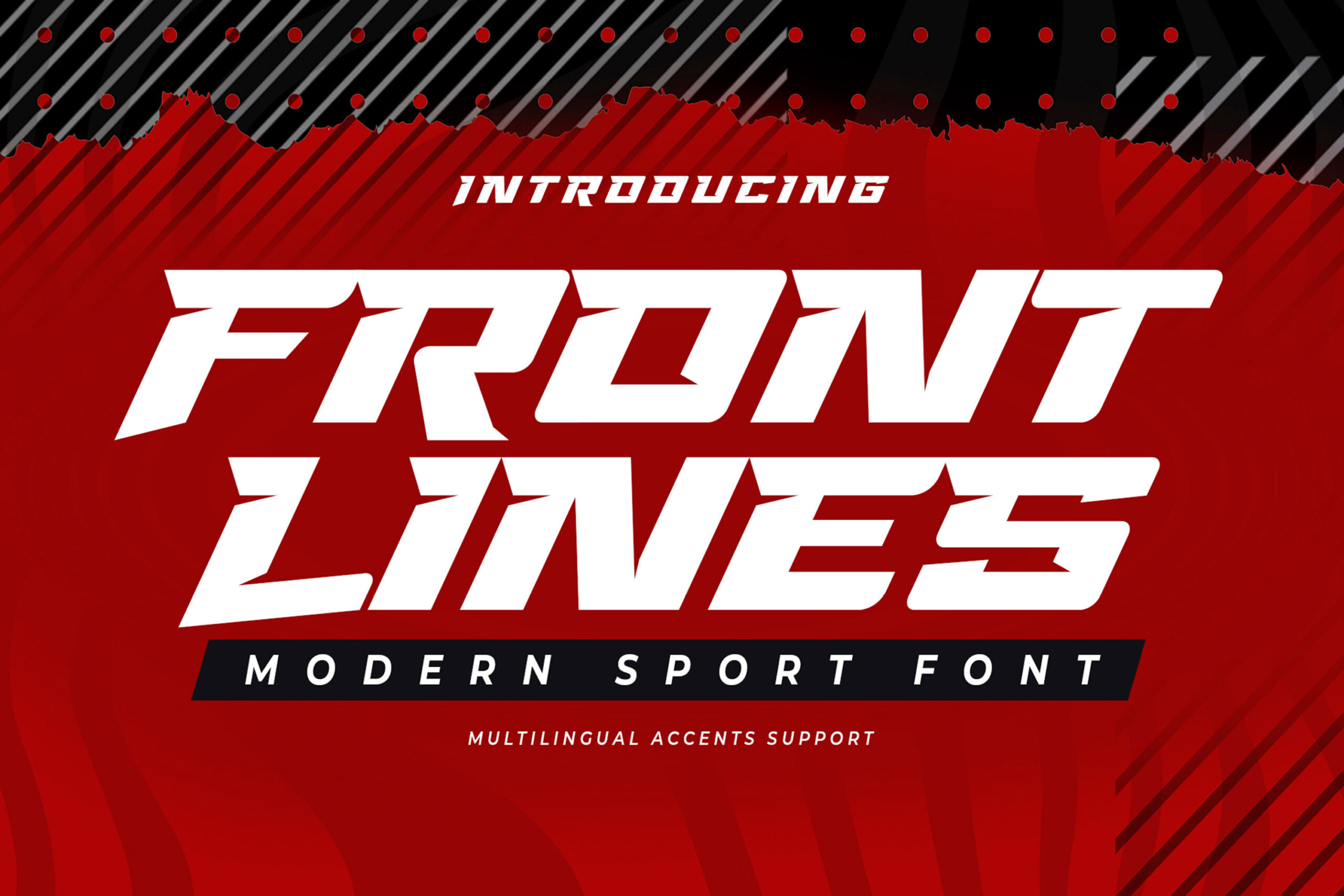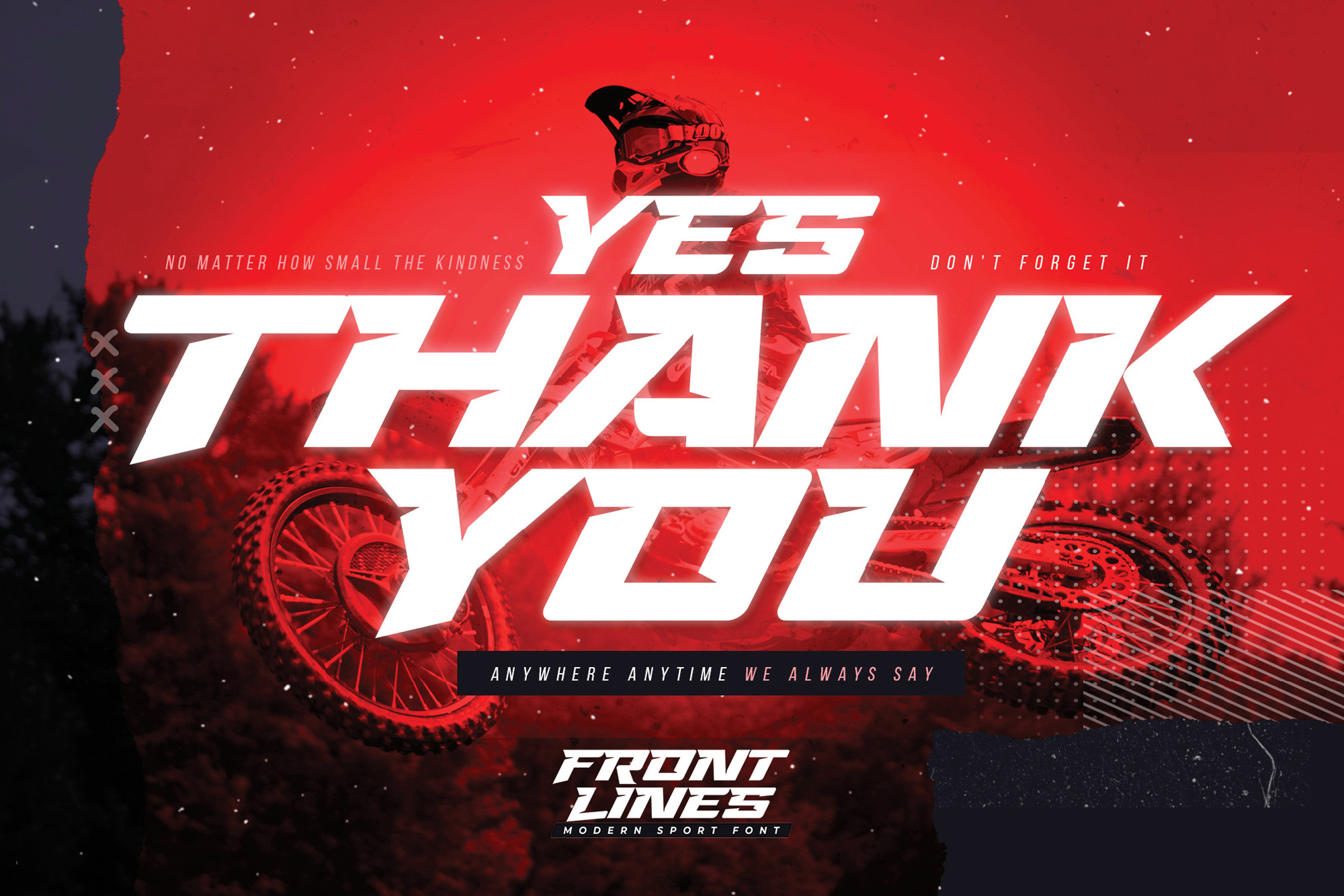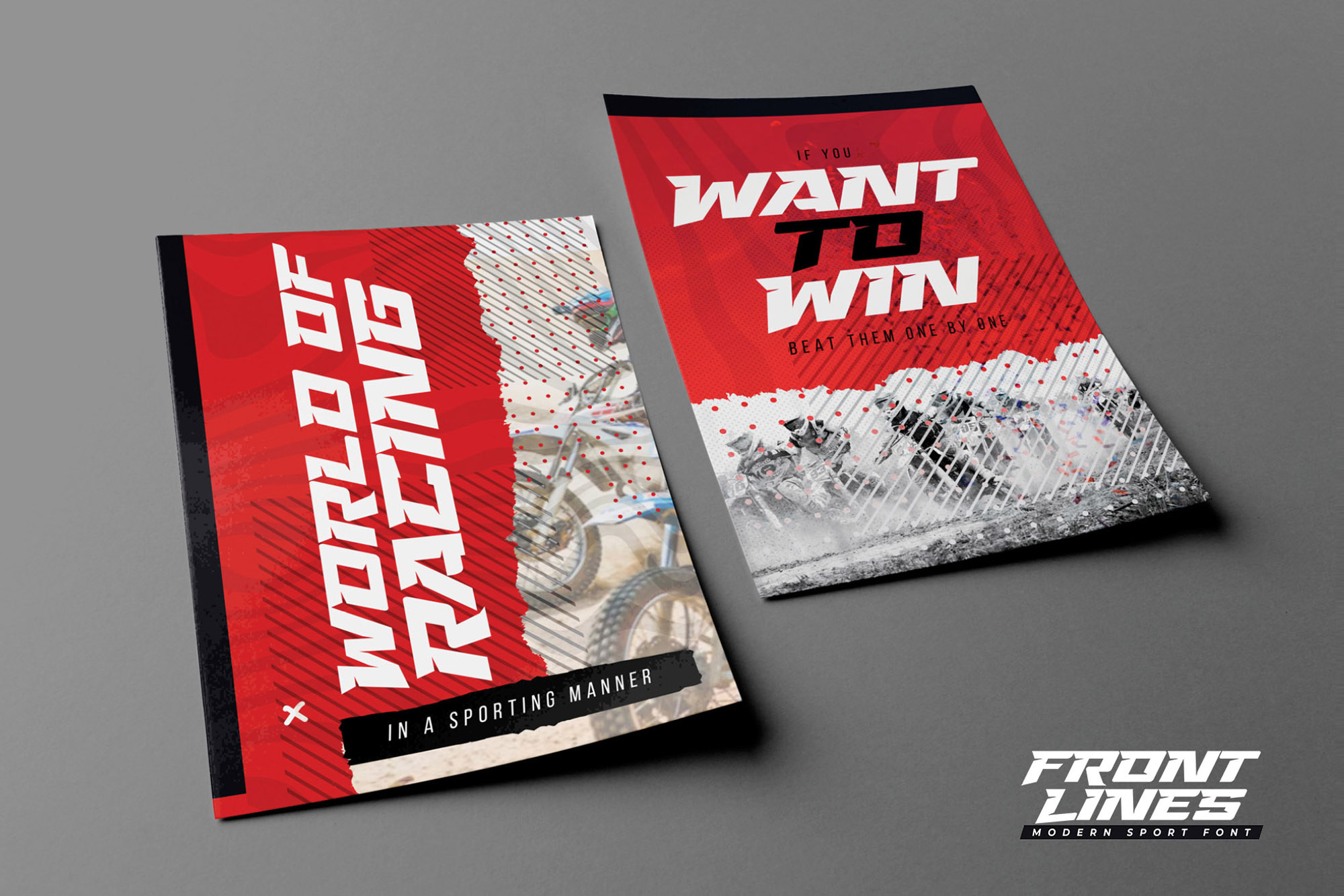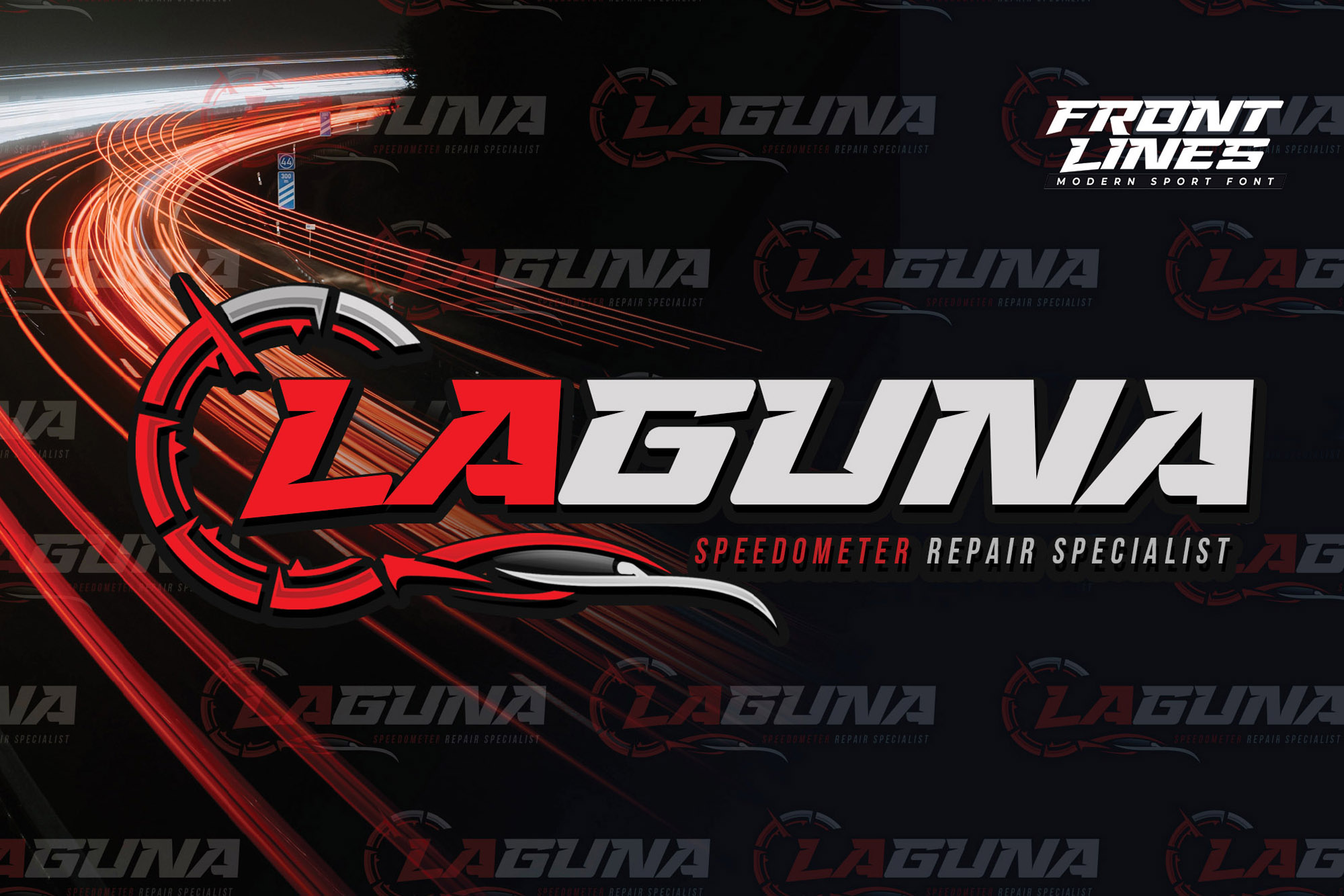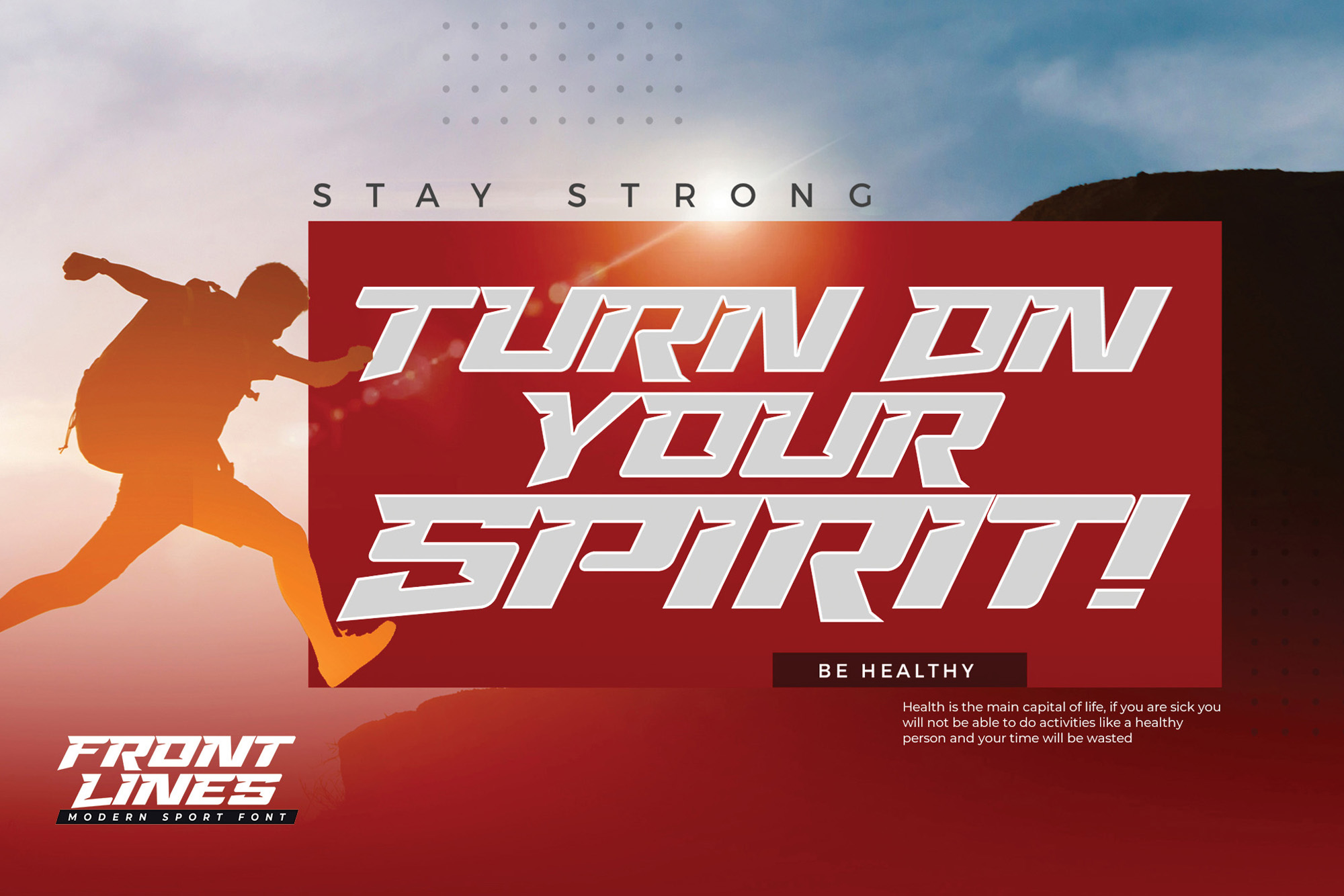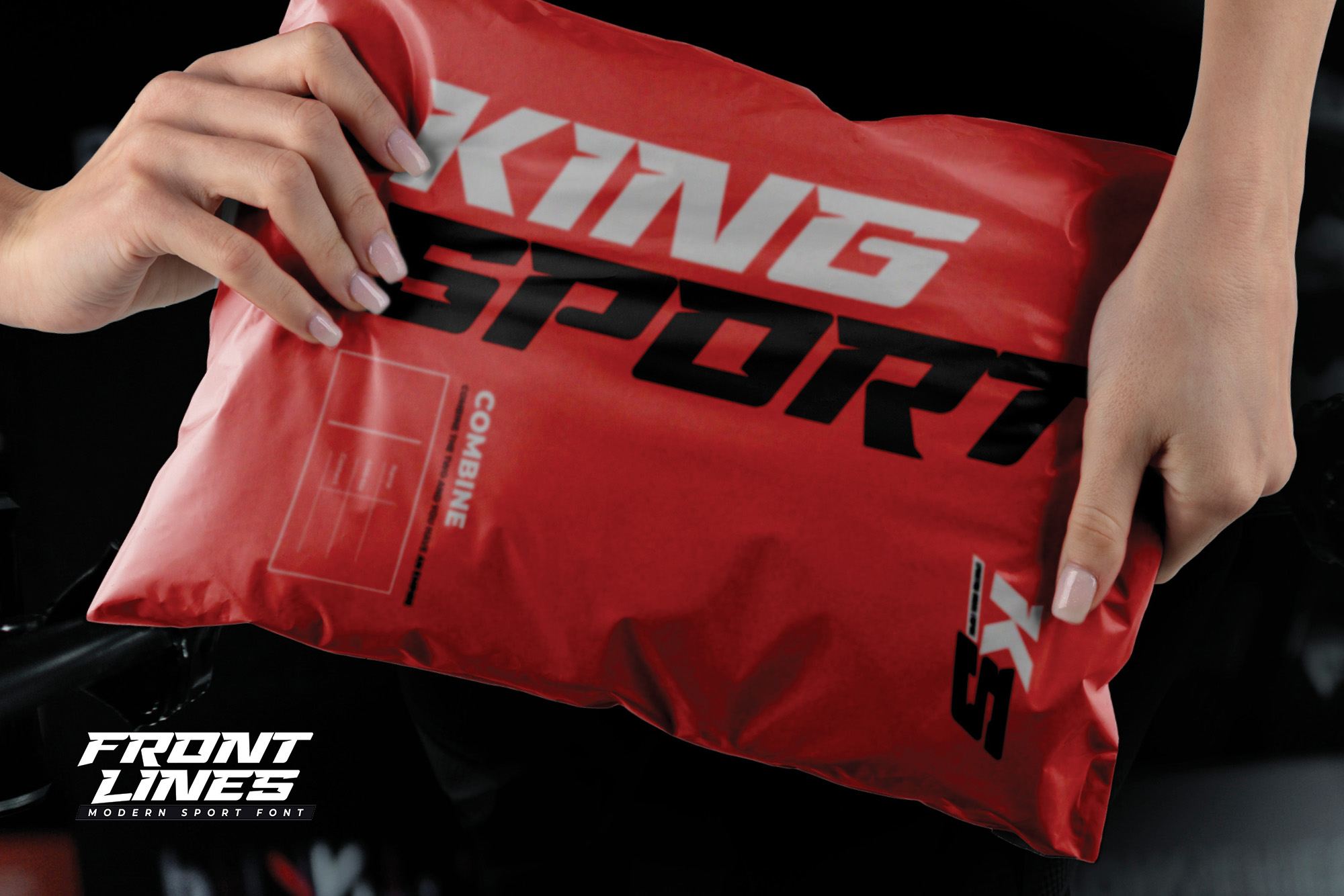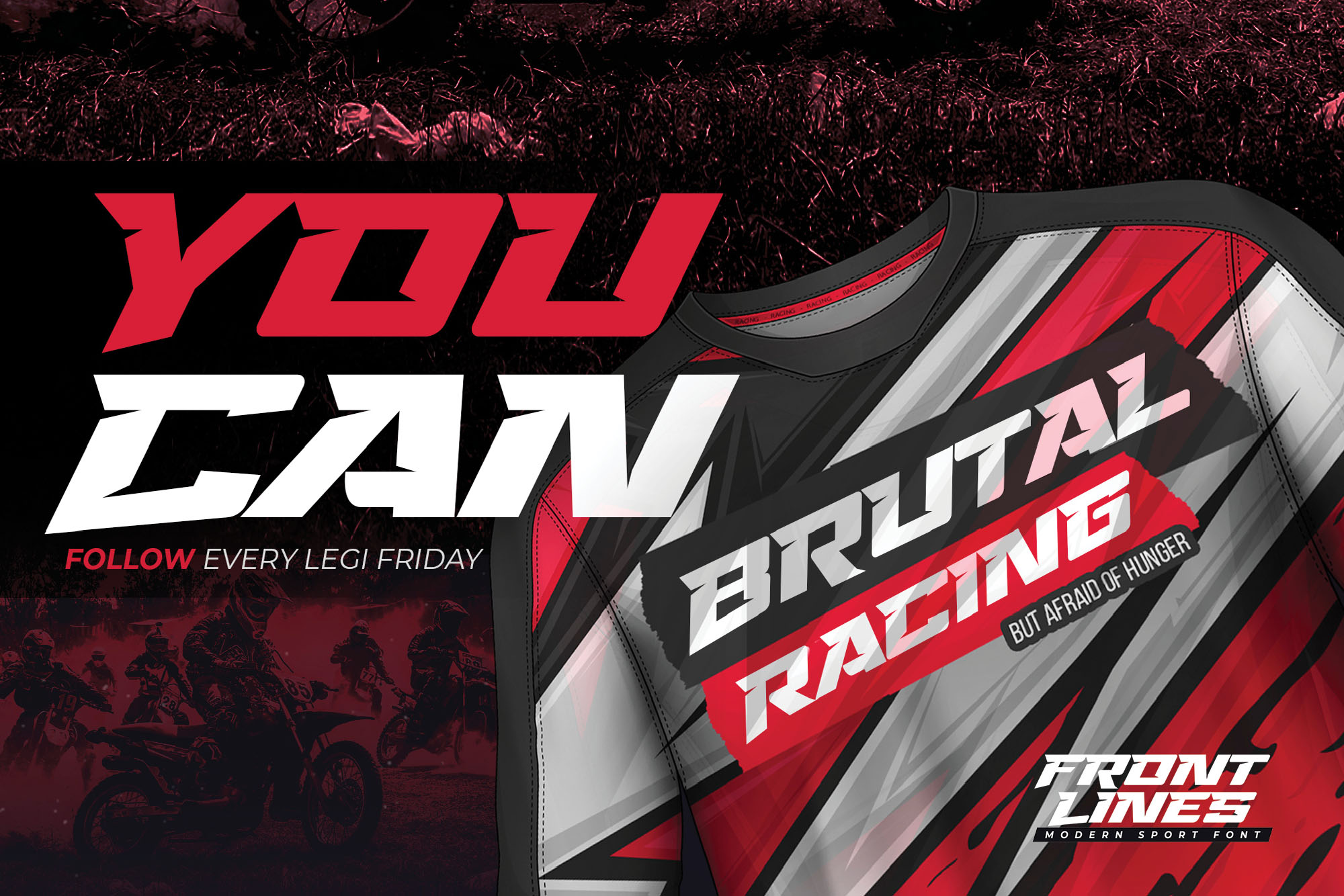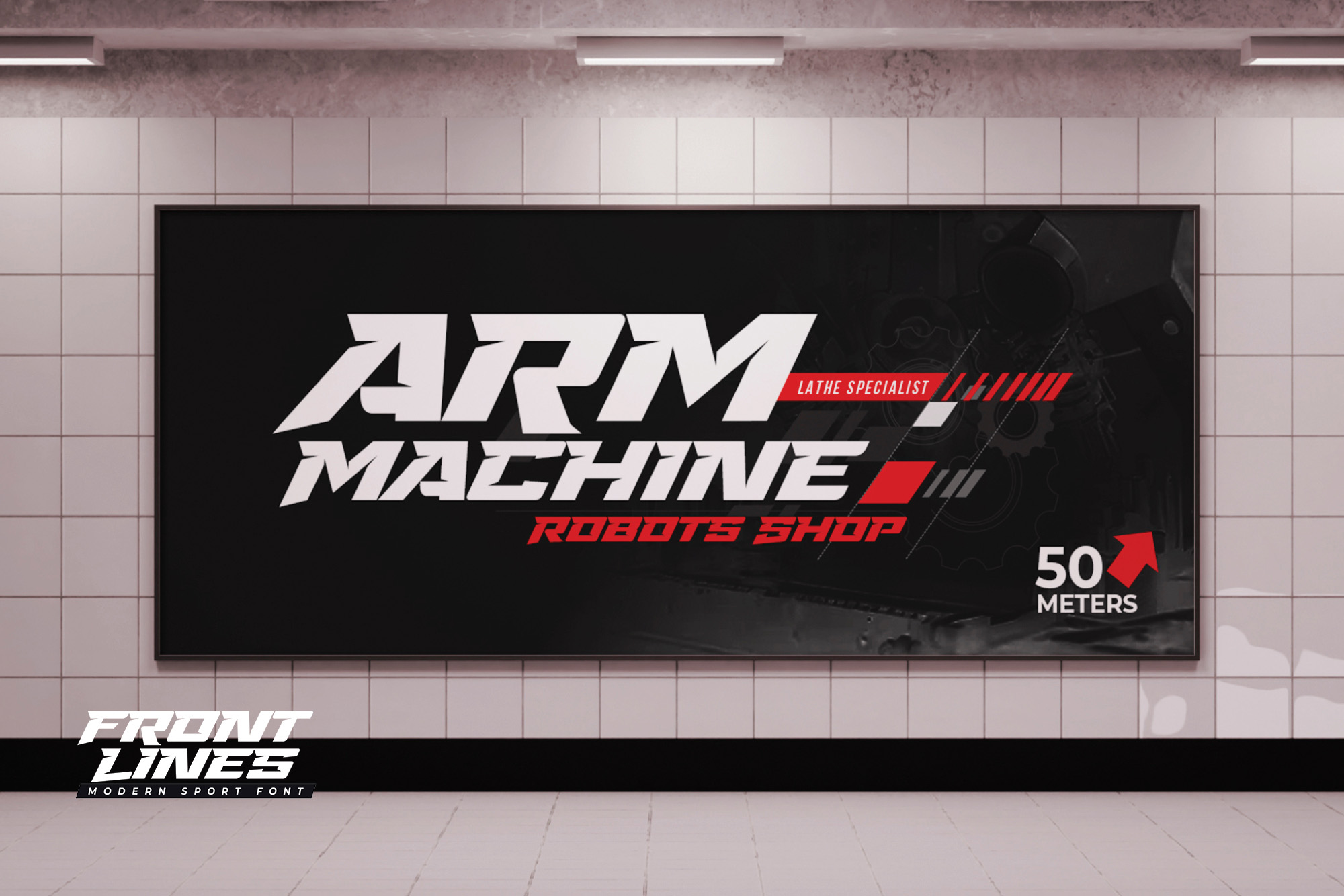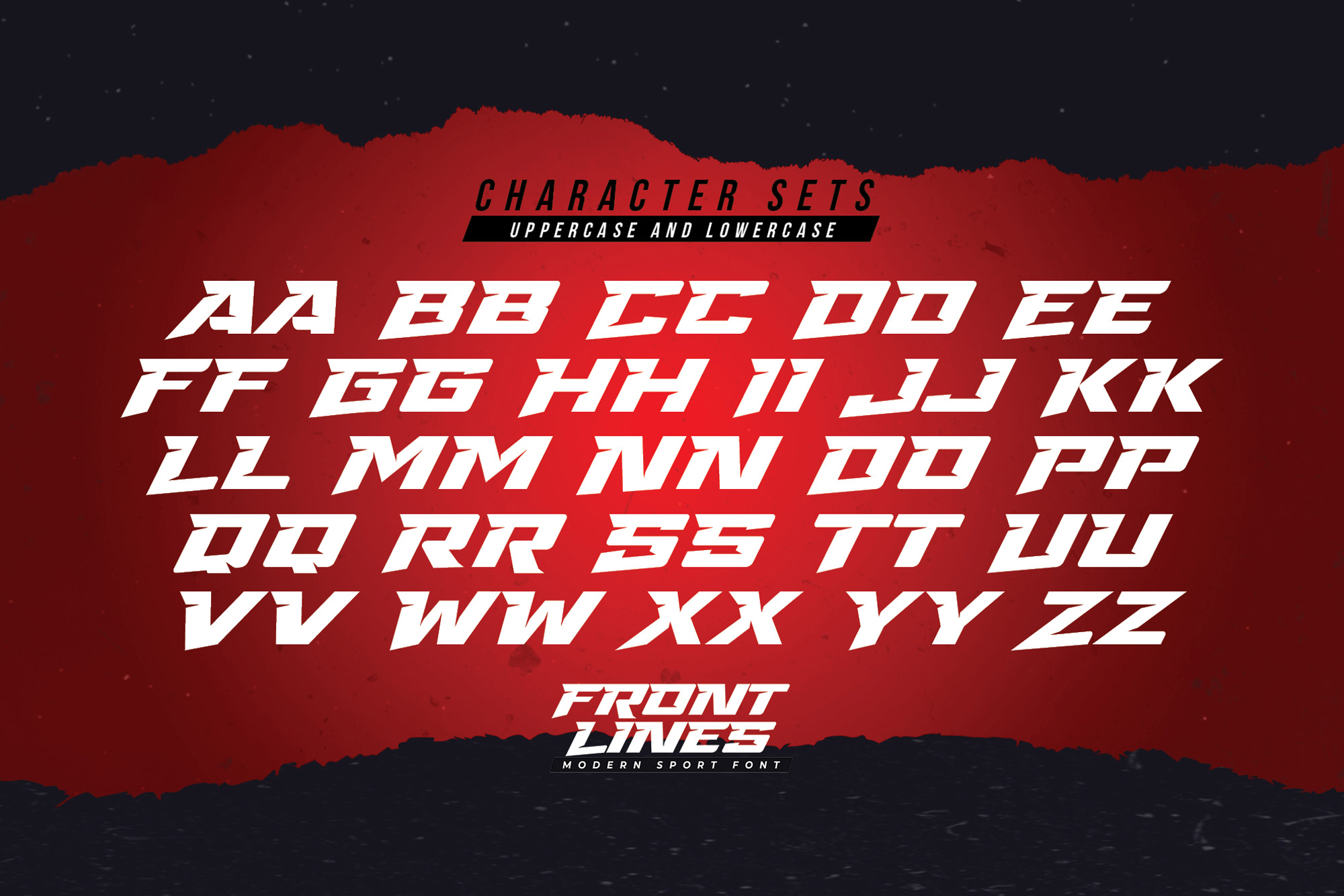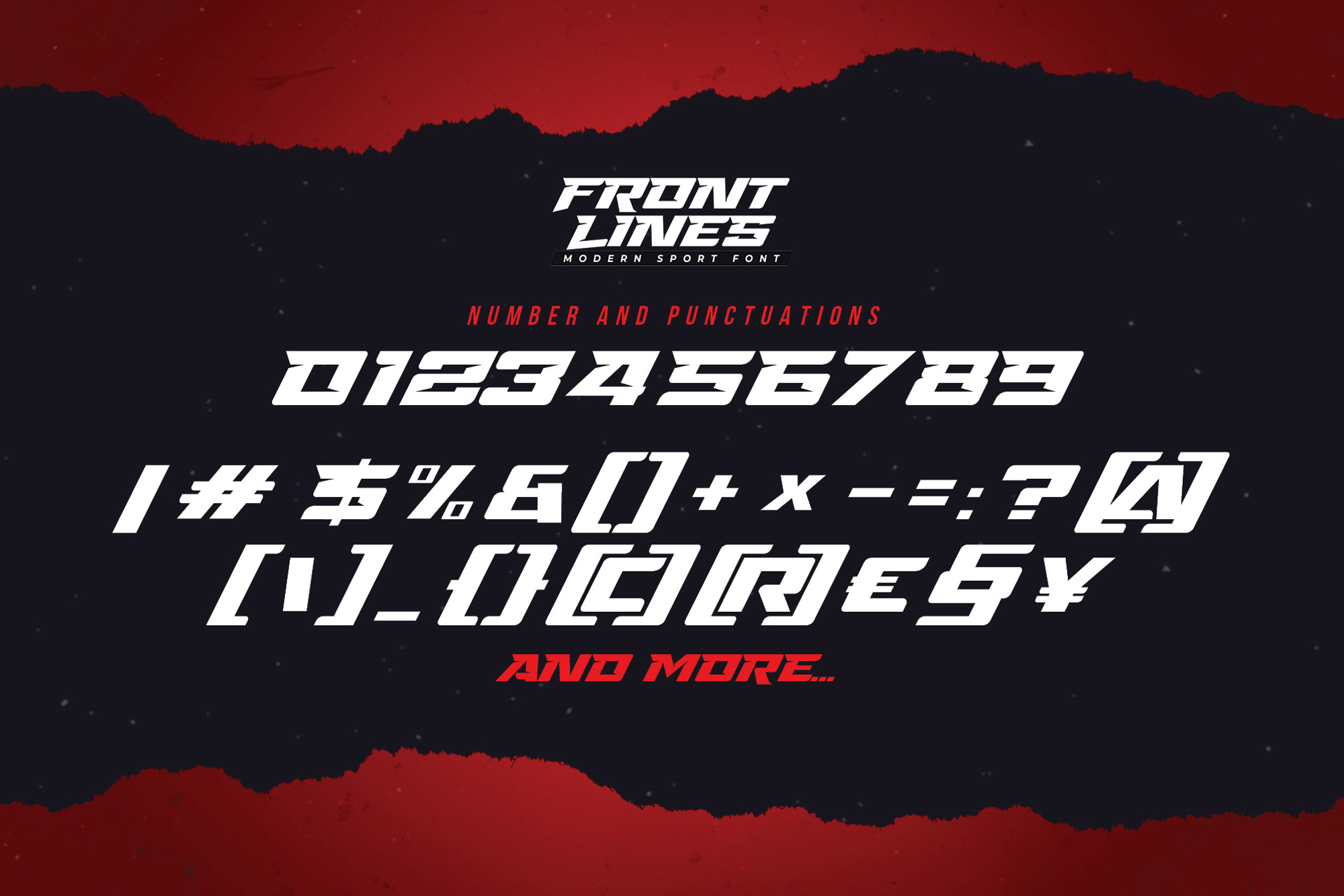
Front Lines – Modern Sport Fonts , modern style and dramatic movement that is written casually and quickly.
The best for labels sport ,poster, project , designs look modern, rough and unique. It’s perfect for labels, quotes, posters, DIY projects, branding, packaging, greeting cards, websites, photography overlays, signs, scrapbooking, tags and so much more! That is why Front Lines has a cool textured, and strong characteristic more natural look.